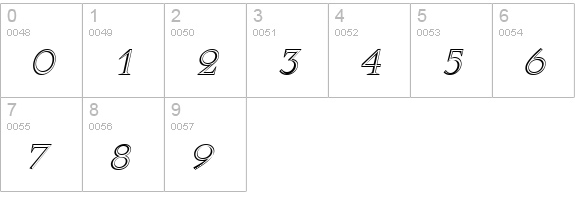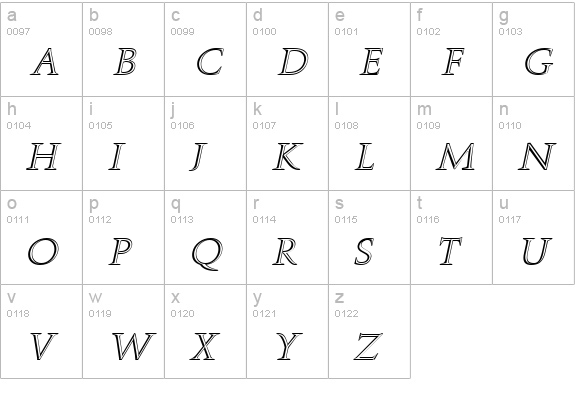
RomanStonecut Italic Font Details
RomanStonecut Italic is a distinctive, italic variant in the RomanStonecut typeface family \xE2\x80\x94 well suited to design and typography projects.
RomanStonecut Italic is a beautifully designed font that exudes elegance and sophistication. Its sharp and clean lines give it a modern yet timeless appeal, making it ideal for a wide range of design projects. The italic style adds a touch of flair and character to any text, making it stand out and grab attention. What sets RomanStonecut Italic apart is not only its stunning aesthetics but also the fact that it is available for free download at FontsMarket.com. This means that you can easily access this premium-quality font without any cost, making it a valuable addition to your design toolkit. Whether you're working on branding materials, invitations, posters, or any other creative project, RomanStonecut Italic is sure to elevate your designs and leave a lasting impression. Download this font today and unleash your creativity with this versatile and stylish typeface.